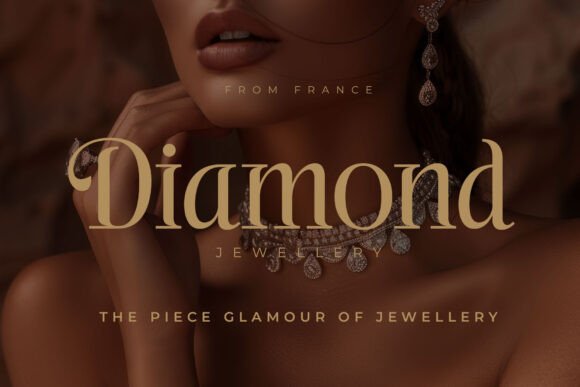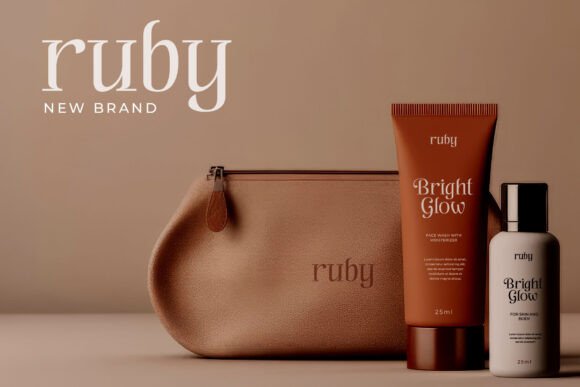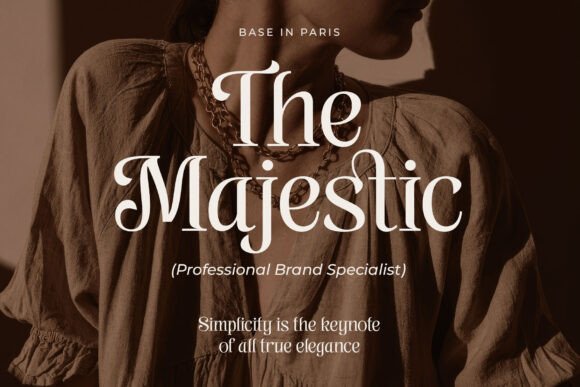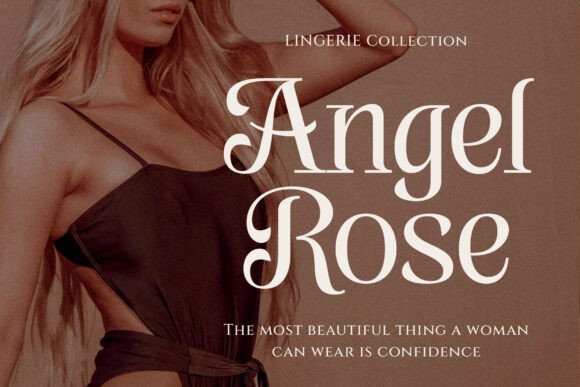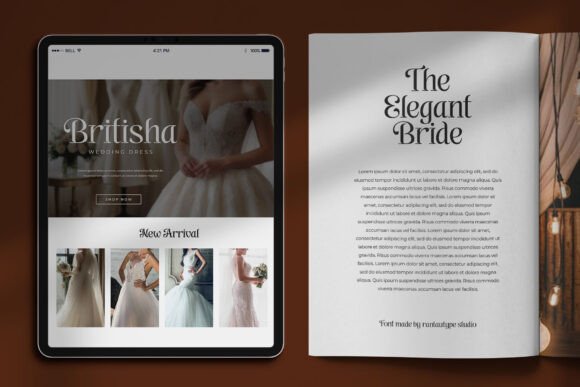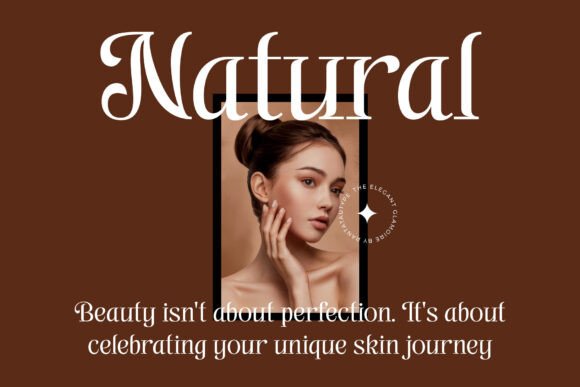
Introduction to Raniega Font
Do you ever find yourself browsing through design inspiration boards, searching for that perfect font to elevate your creative project? Maybe you’ve been scrolling through Pinterest, admiring beautifully crafted wedding invitations or stunning social media posts, wondering how they achieved that perfect look. If you’re a designer, you know how challenging it can be to find a font that not only fits your aesthetic but also conveys the message you want to convey.
That’s where Raniega Font comes in – an elegant and bold serif font that will leave you and your audience in awe. With its incredibly versatile style, you can create anything from gorgeous wedding invitations to beautiful stationery art, eye-catching social media posts, and much more.
Honest Review: Raniega Font
As a designer, I’m always on the lookout for high-quality design resources to elevate my creative projects. The Raniega Font is one such resource that caught my attention.
What works well with the Raniega Font is its versatility and sleek aesthetic. It’s perfect for any design project that requires a modern and sophisticated look. The font is available for free download, making it an excellent choice for designers on a budget. I particularly appreciate the transparent background option, which allows me to easily combine it with other design elements.
- ✨ High-quality design: The Raniega Font is crisp and clear, making it perfect for both digital and print projects.
One limitation of the Raniega Font is its limited character set. It may not be suitable for projects that require a wide range of characters or languages.
Overall, I’m impressed with the Raniega Font’s potential as a design resource. Its sleek aesthetic and high-quality design make it an excellent choice for any creative project. While it may have some limitations, it’s a great option for designers looking for a modern and sophisticated font.
Tips for Getting the Most Out of Raniega Font
For a high-quality look, use the Raniega Font with a transparent background. This will allow the text to blend seamlessly with your design. You can also experiment with different font sizes, colors, and combinations to achieve a unique look.
The Raniega Font is a versatile design resource suitable for various creative projects, including:
- Presentation designs and slides
- Document titles and headings
- Website and blog content